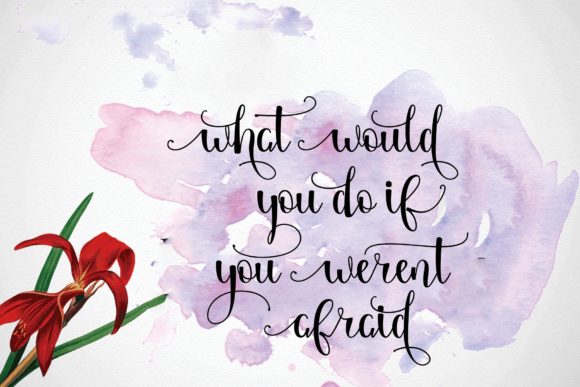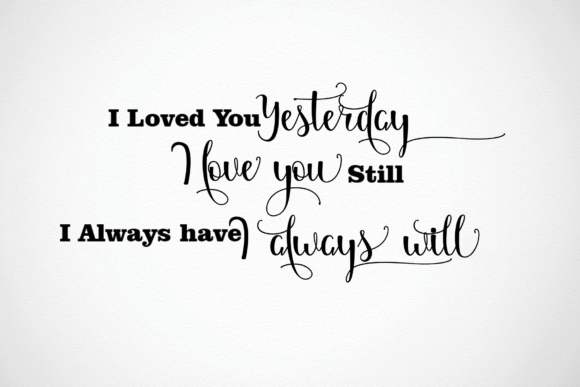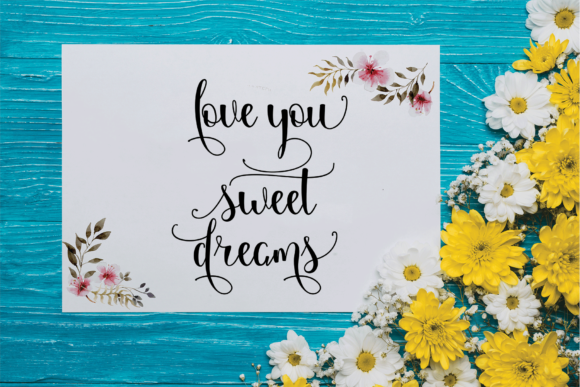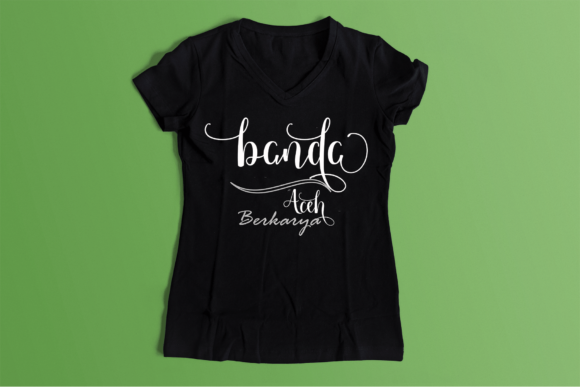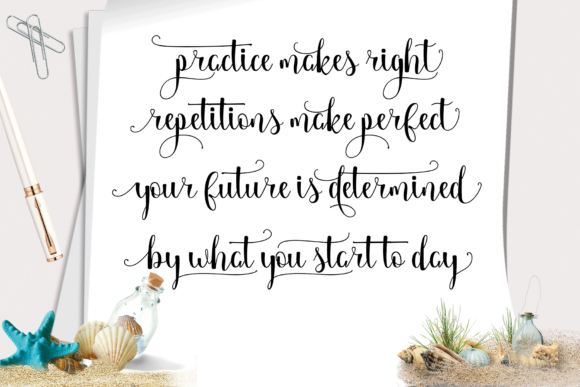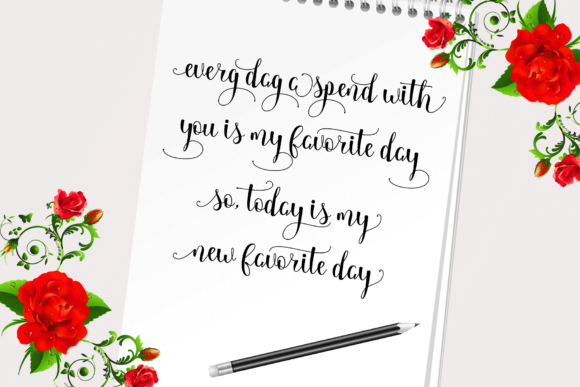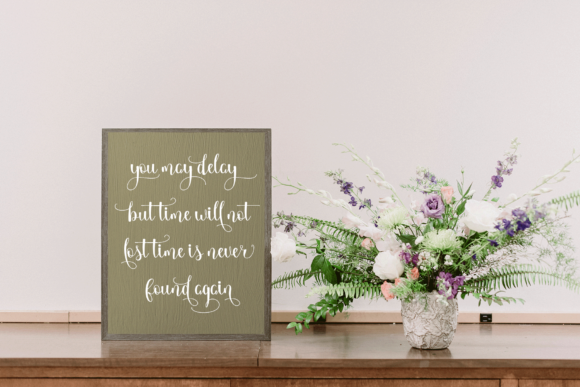
Margarita Font
The Margarita is a handwritten script with an elegant touch.
It can be used for invitations, signatures, blogs, social media, and much more!